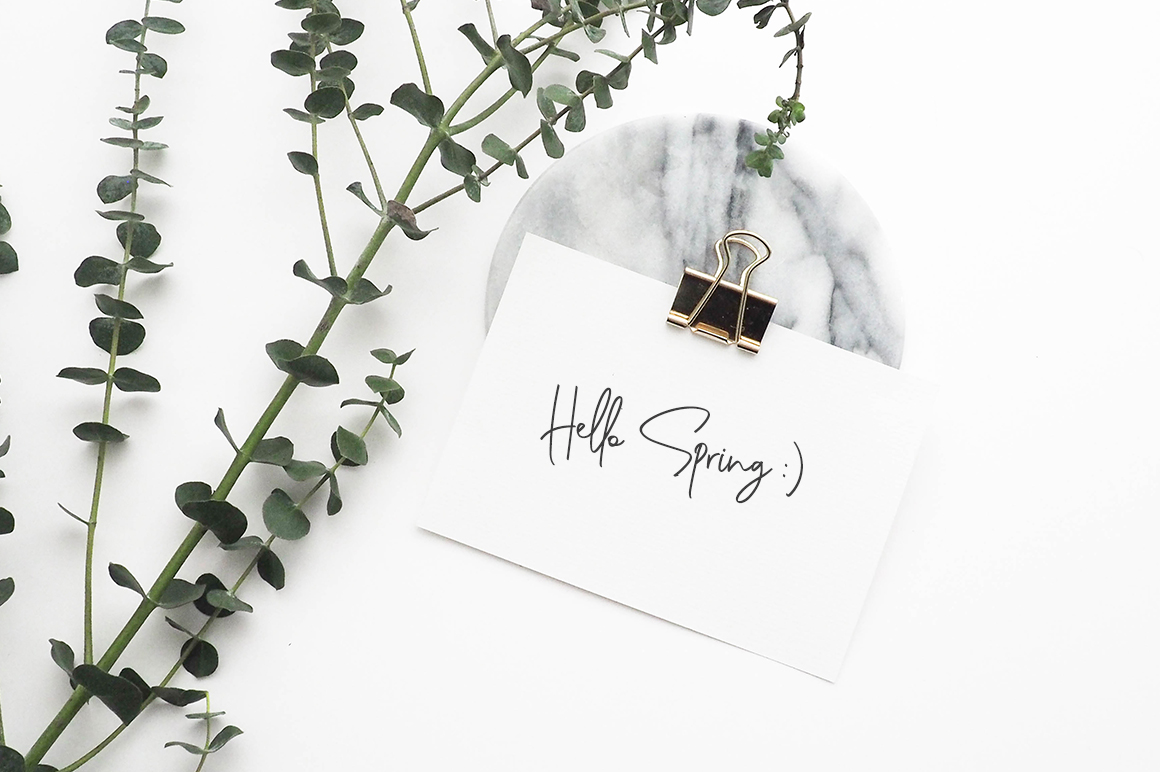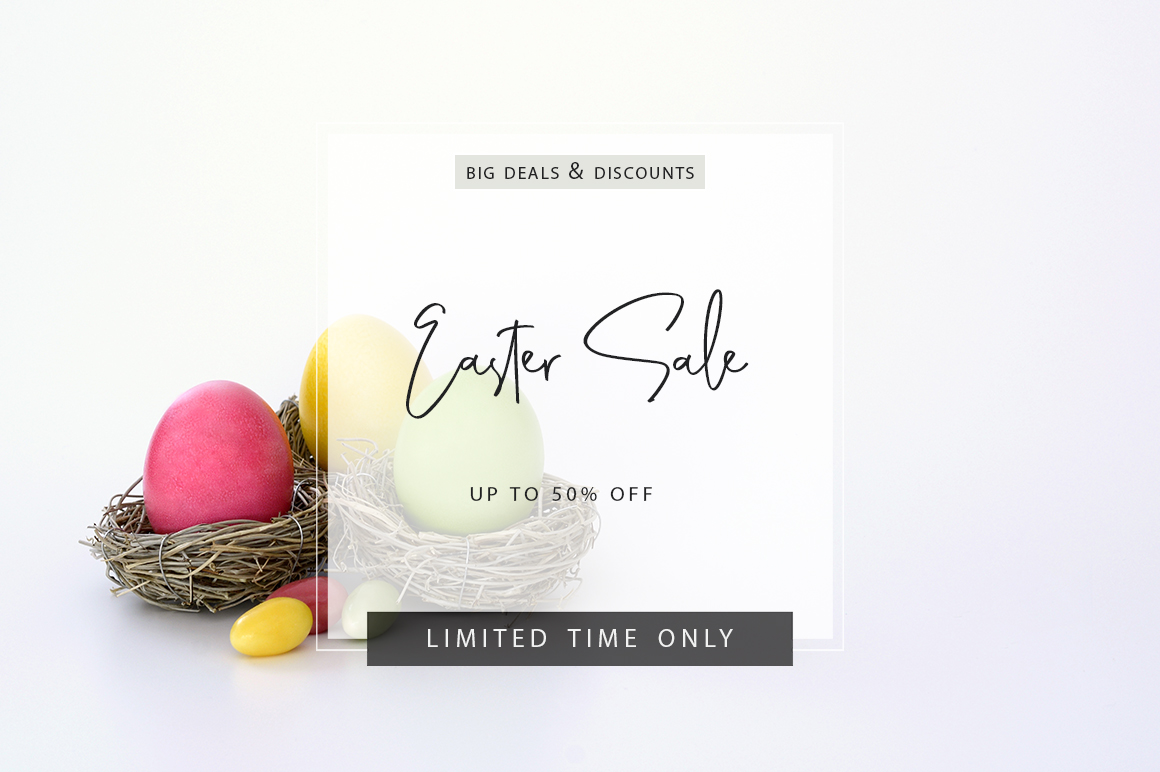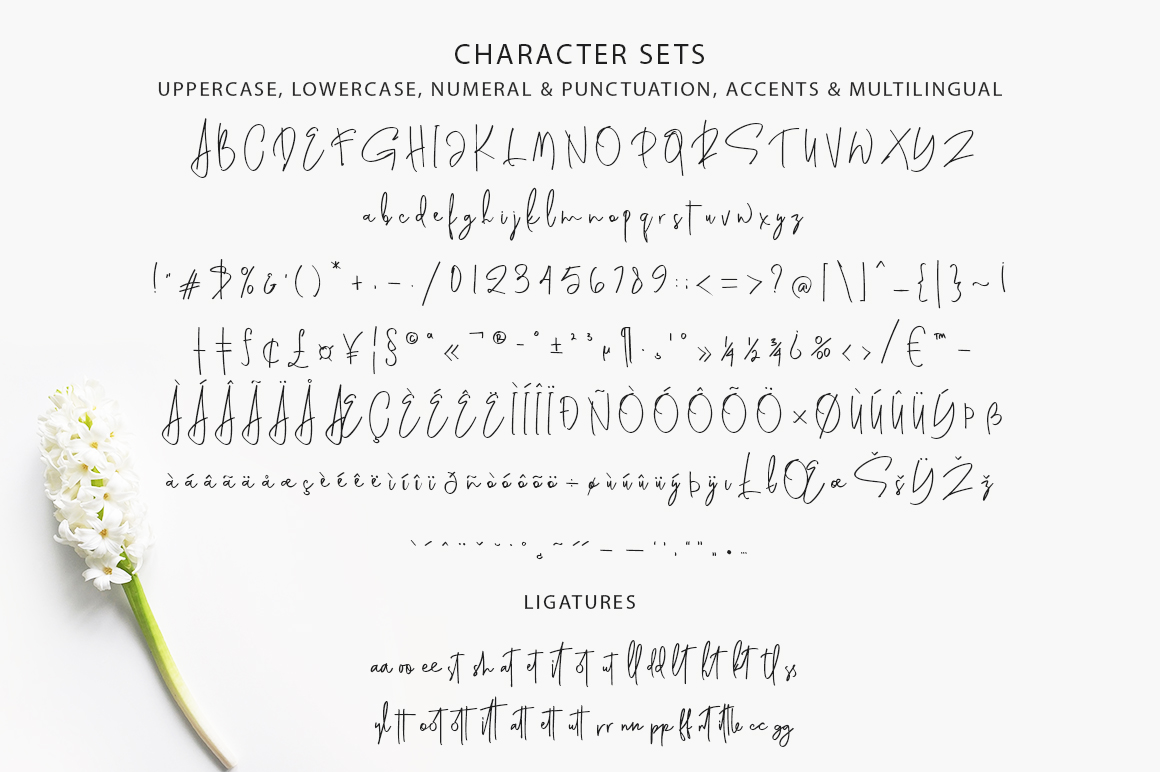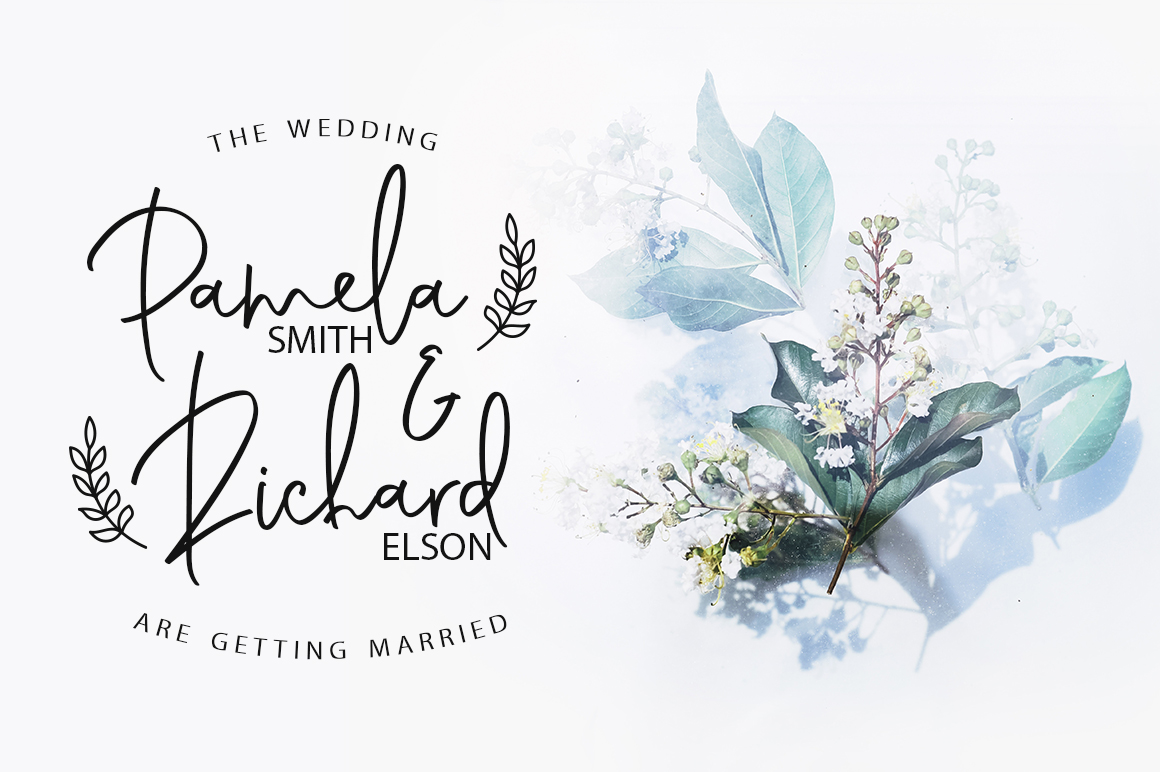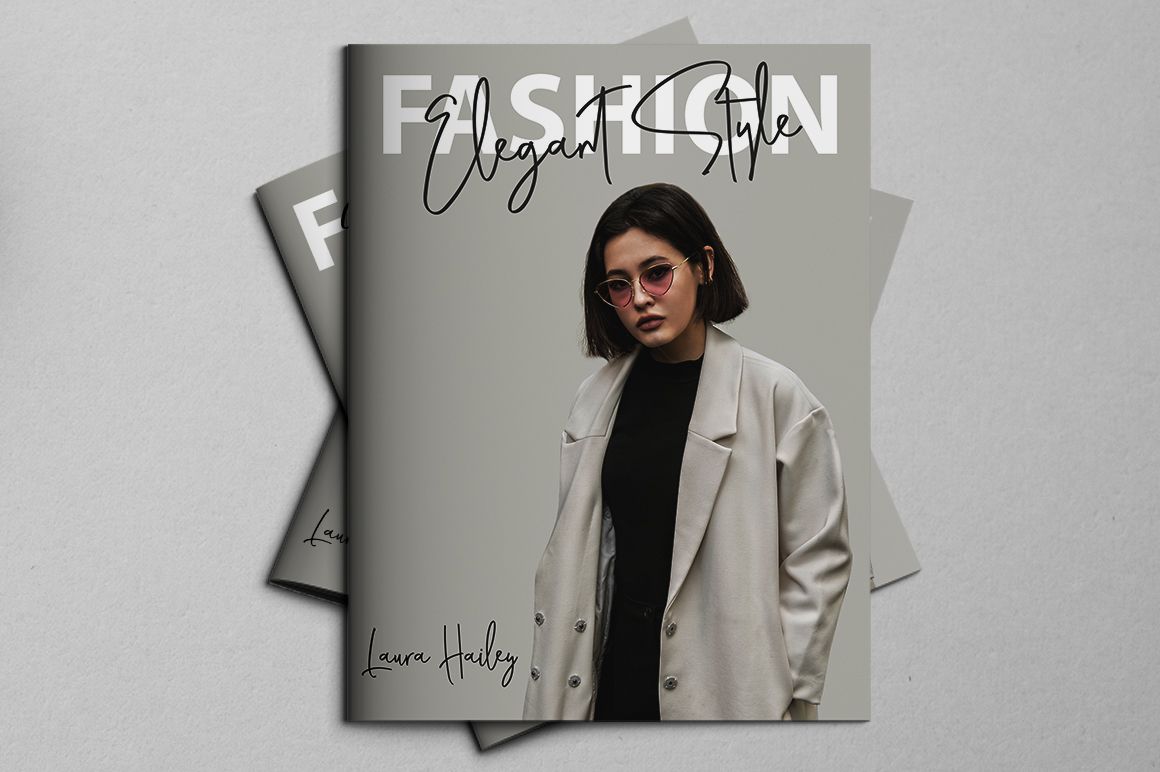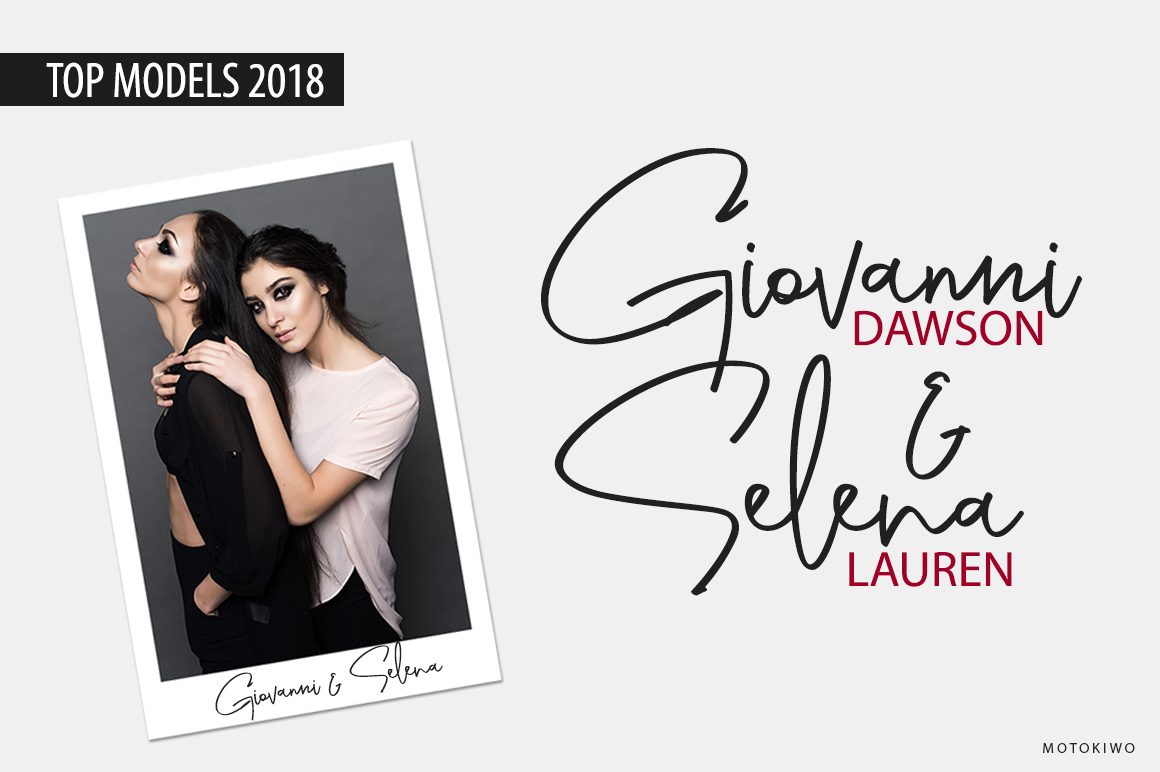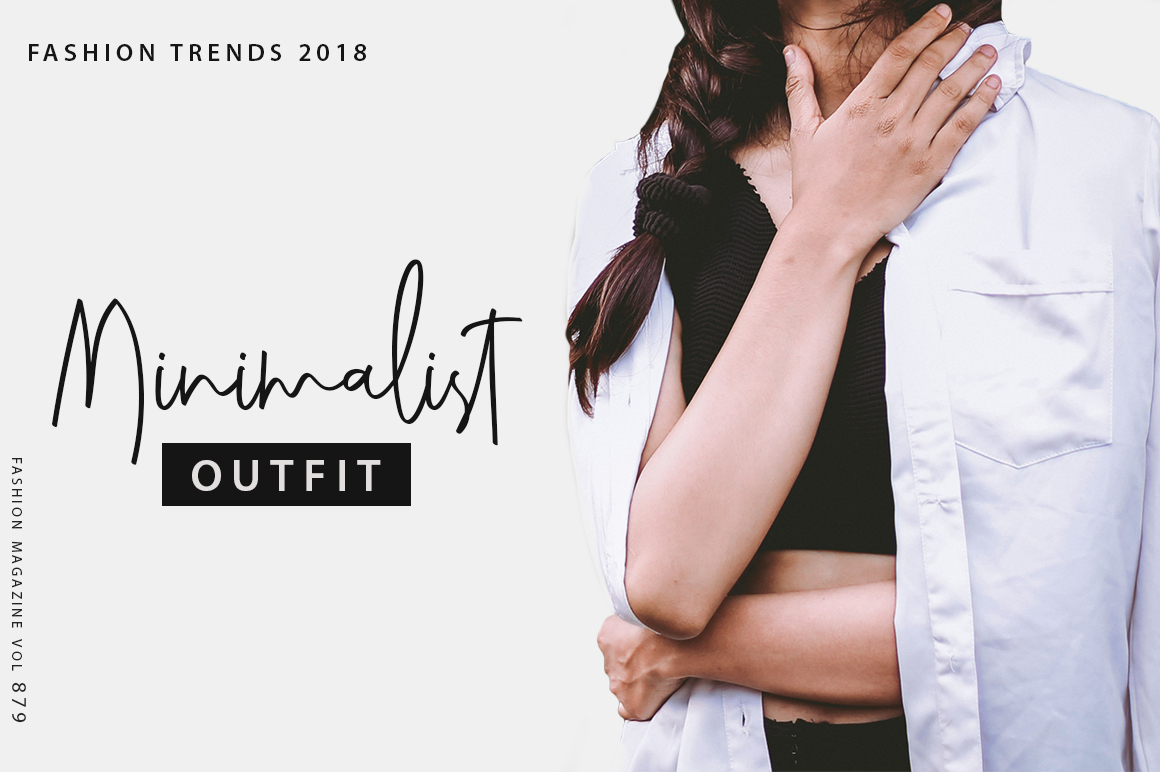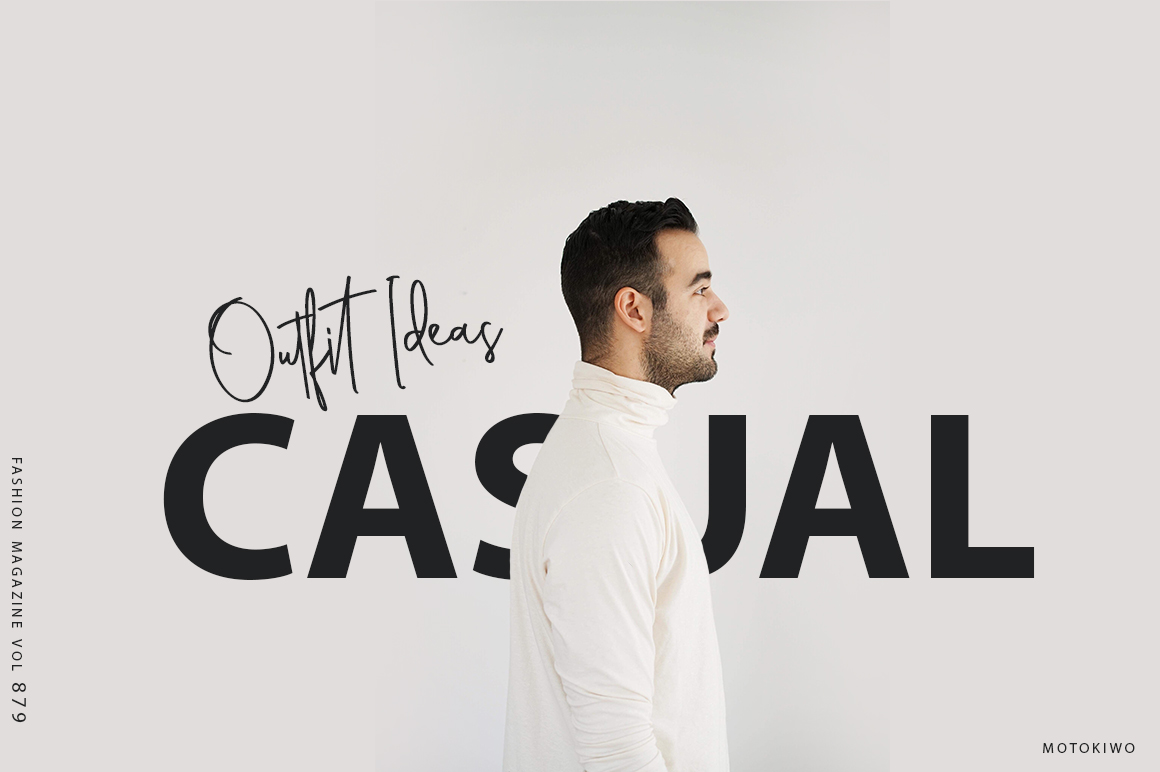
Genit Font
About Genit Font
Genit is classy, elegant, modern, and natural handwritten script font. Genit was made to handle every minimalist design projects. Minimalist design is recommended for professional business, just like Leonardo da Vinci said:
“Simplicity is the ultimate form of sophistication.”